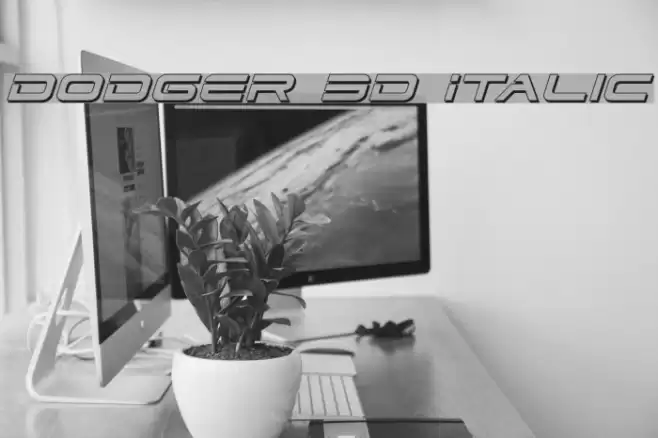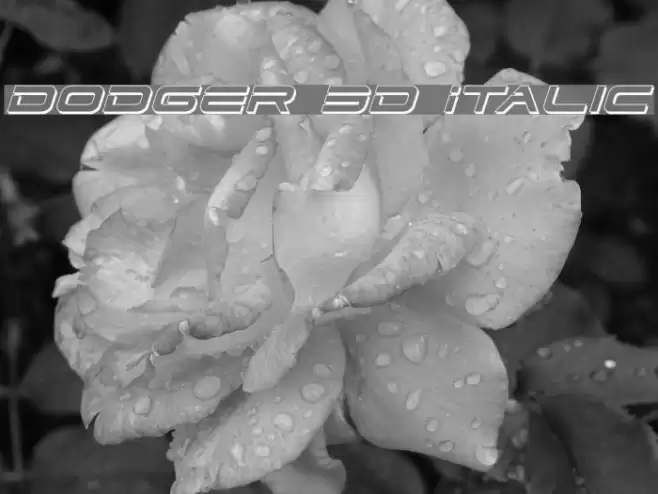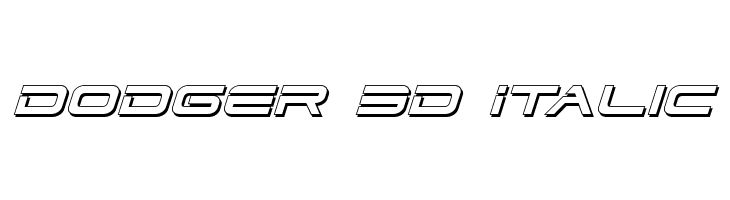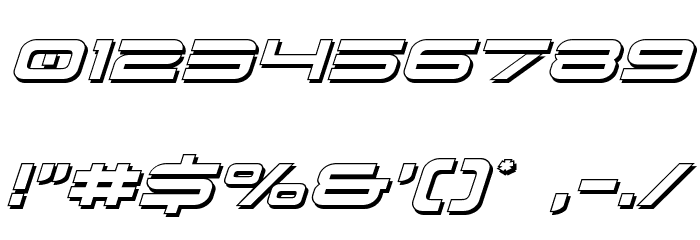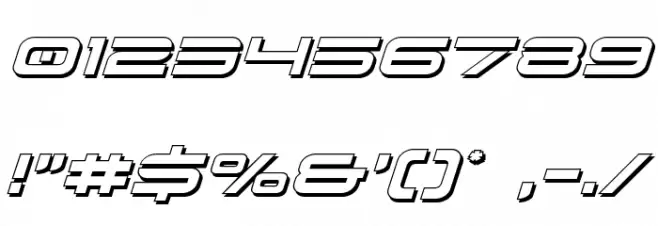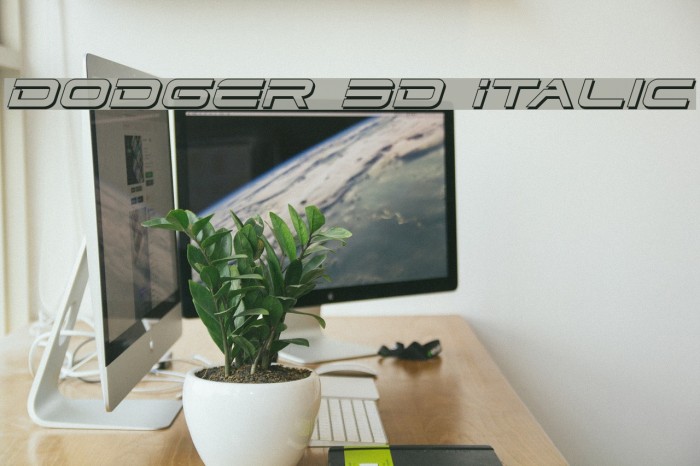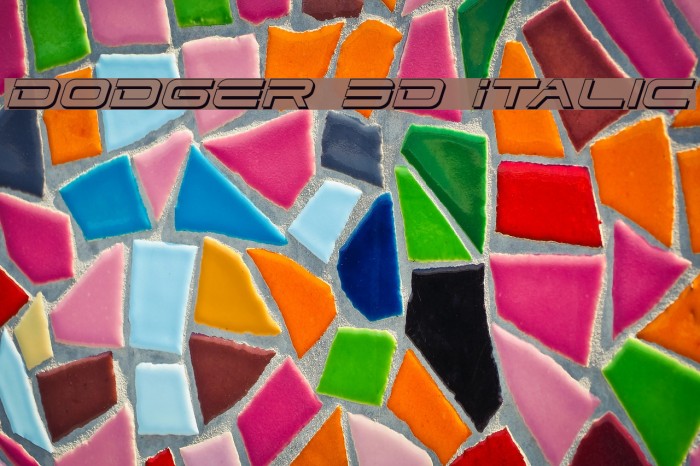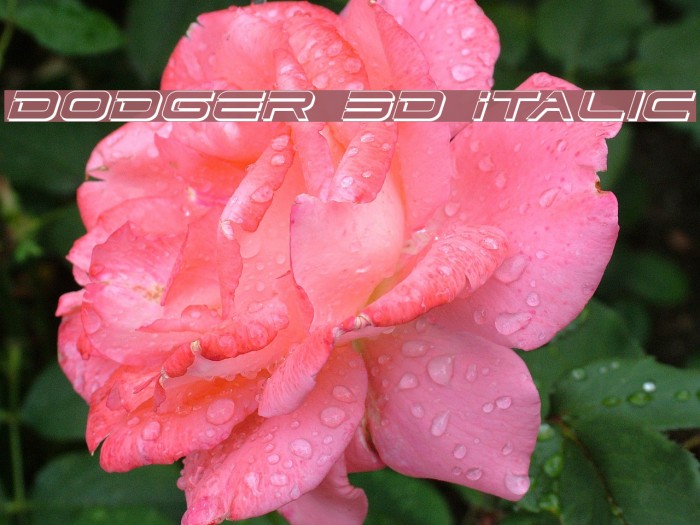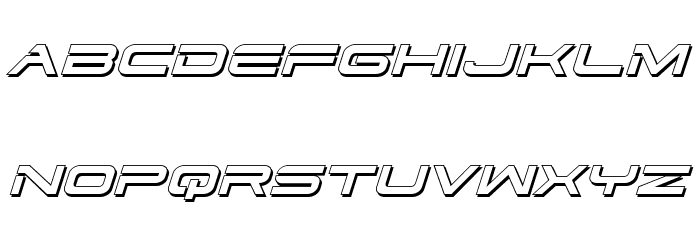
Dodger 3D Italic Font
Dodger 3D Italic Description
This font features a dynamic and futuristic 3D design, characterized by its italicized and bold structure. Each character is outlined with a distinct shadow effect, giving it a sense of depth and movement. The geometric shapes and clean lines contribute to its modern and tech-inspired aesthetic. The uppercase and lowercase letters maintain a consistent style, with angular edges and a slight slant, enhancing the italic effect. Numbers and special characters follow the same design principles, ensuring uniformity across all glyphs. The font's unique style makes it suitable for projects that require a bold and eye-catching typeface.
A bold, italicized 3D font with a futuristic and dynamic design from Uncategorized fonts.
- Proposed Projects: Ideal for tech-related branding, video game titles, futuristic posters, and digital media.